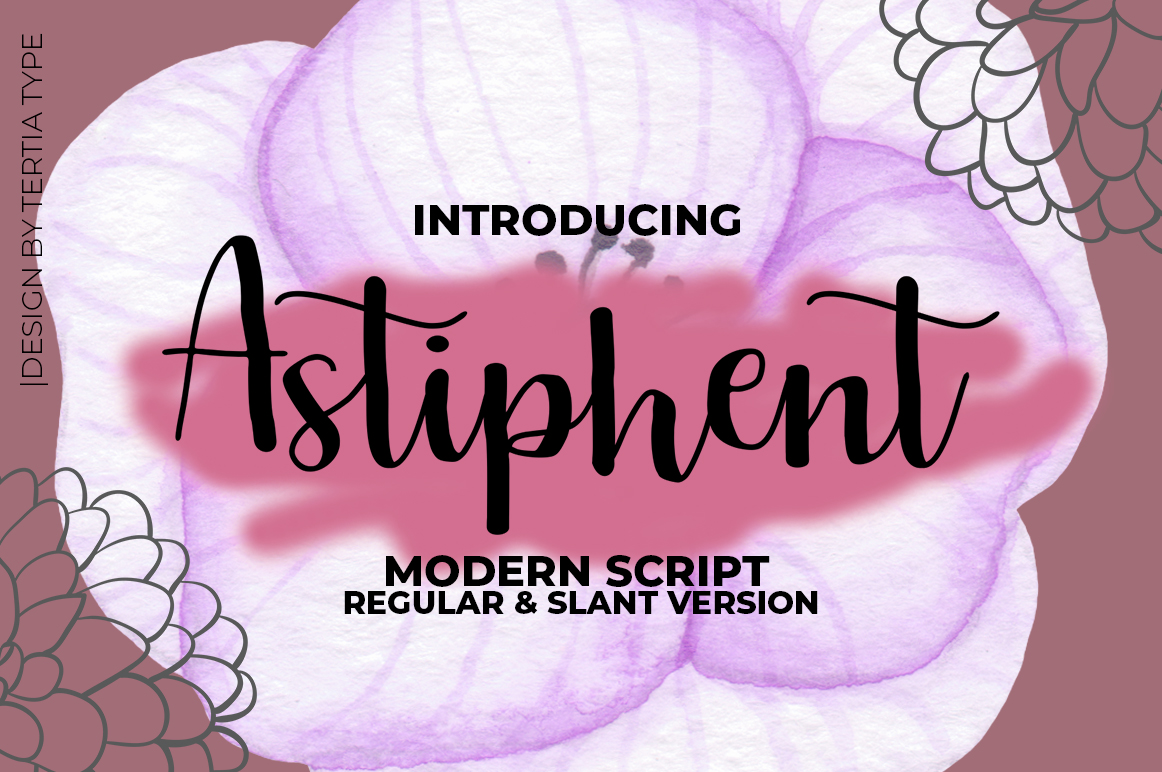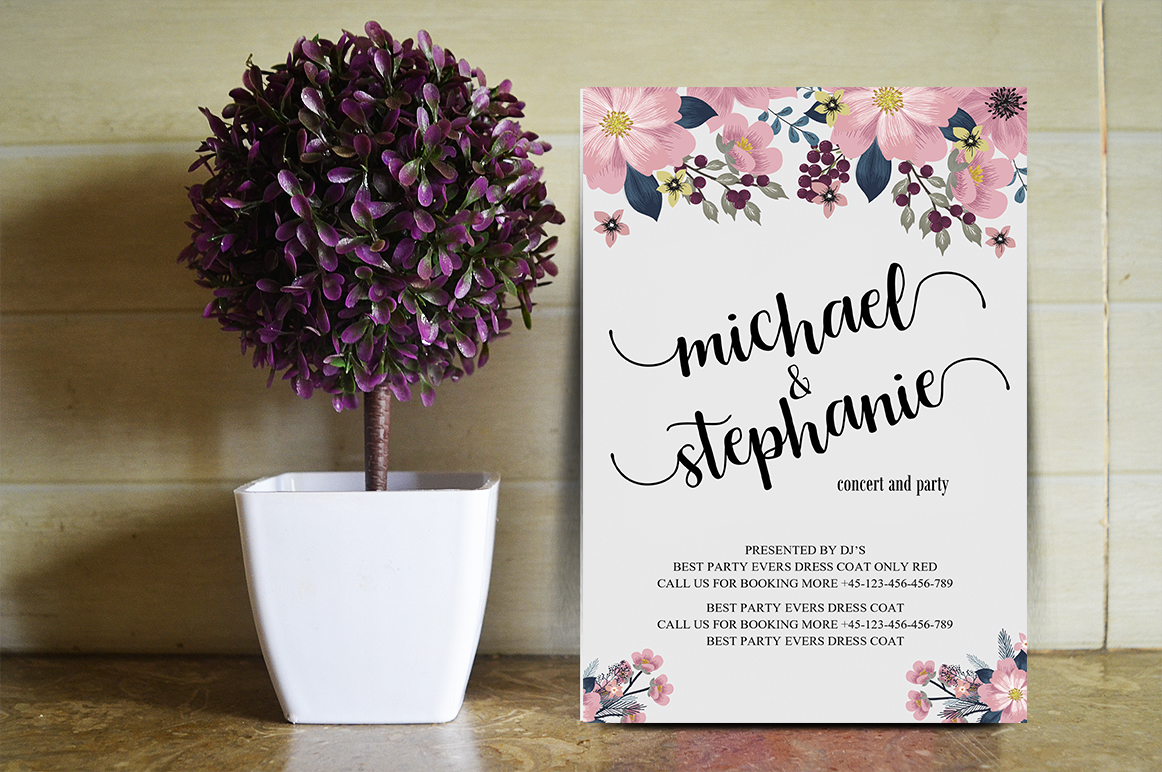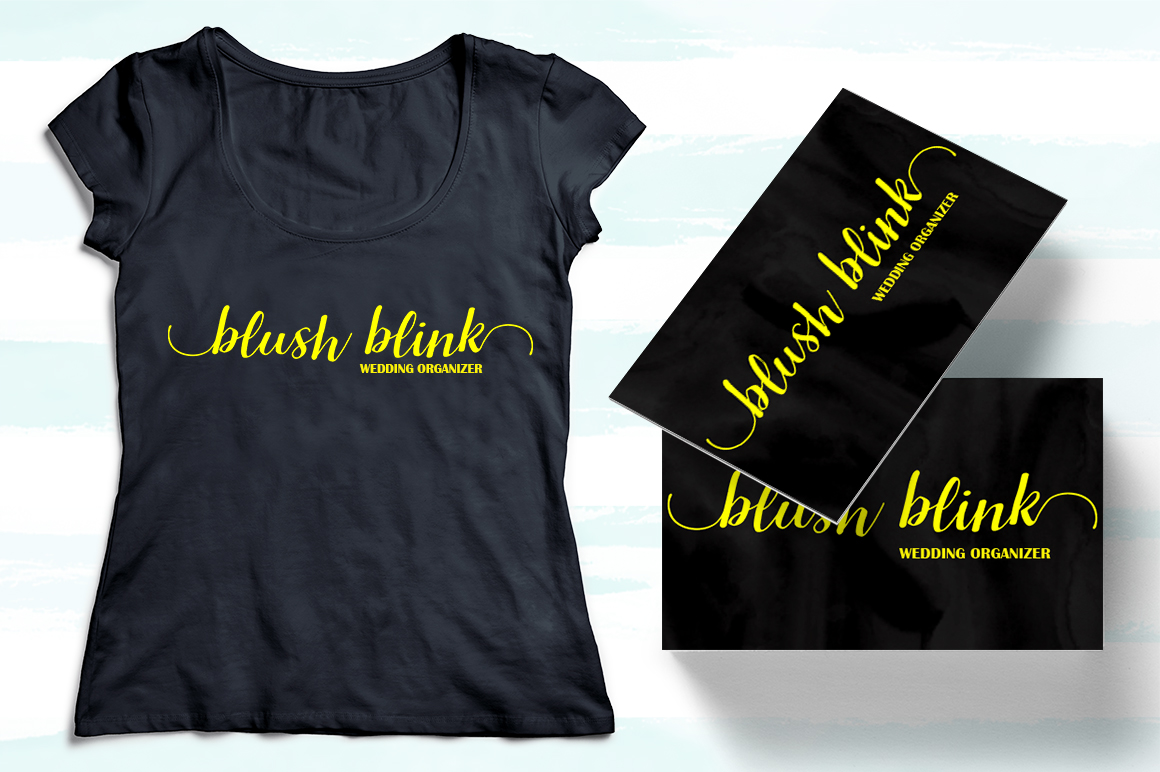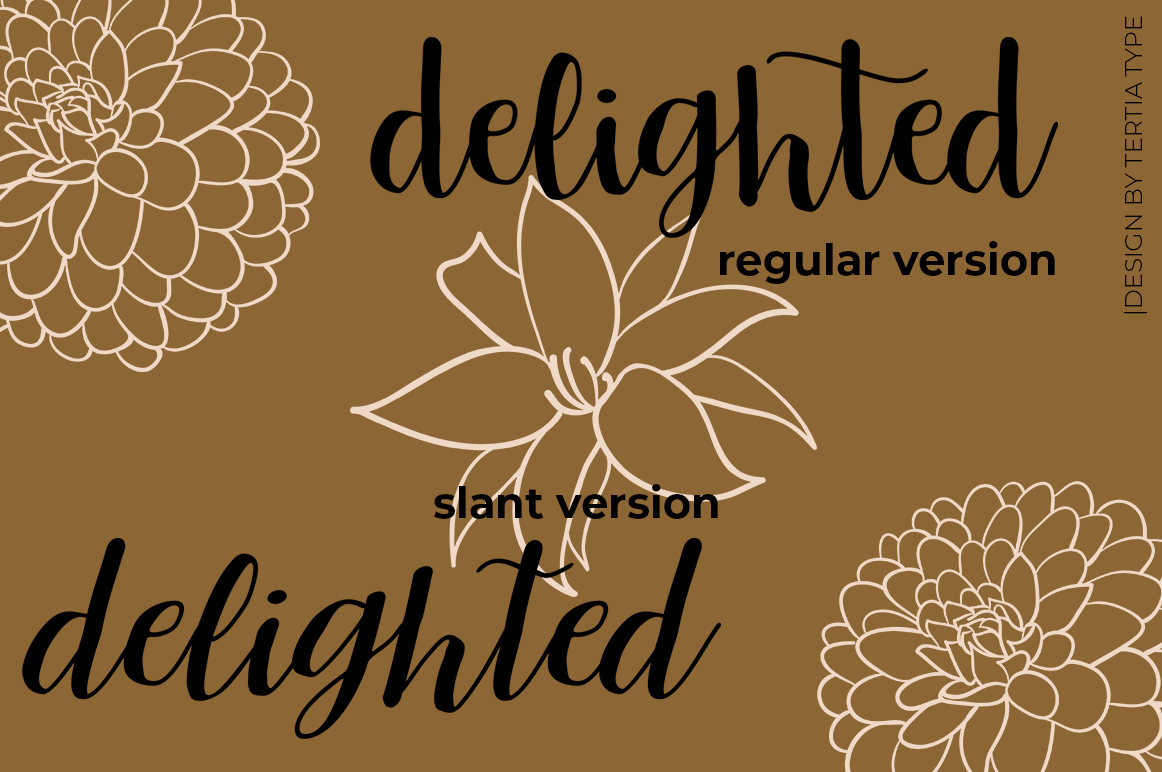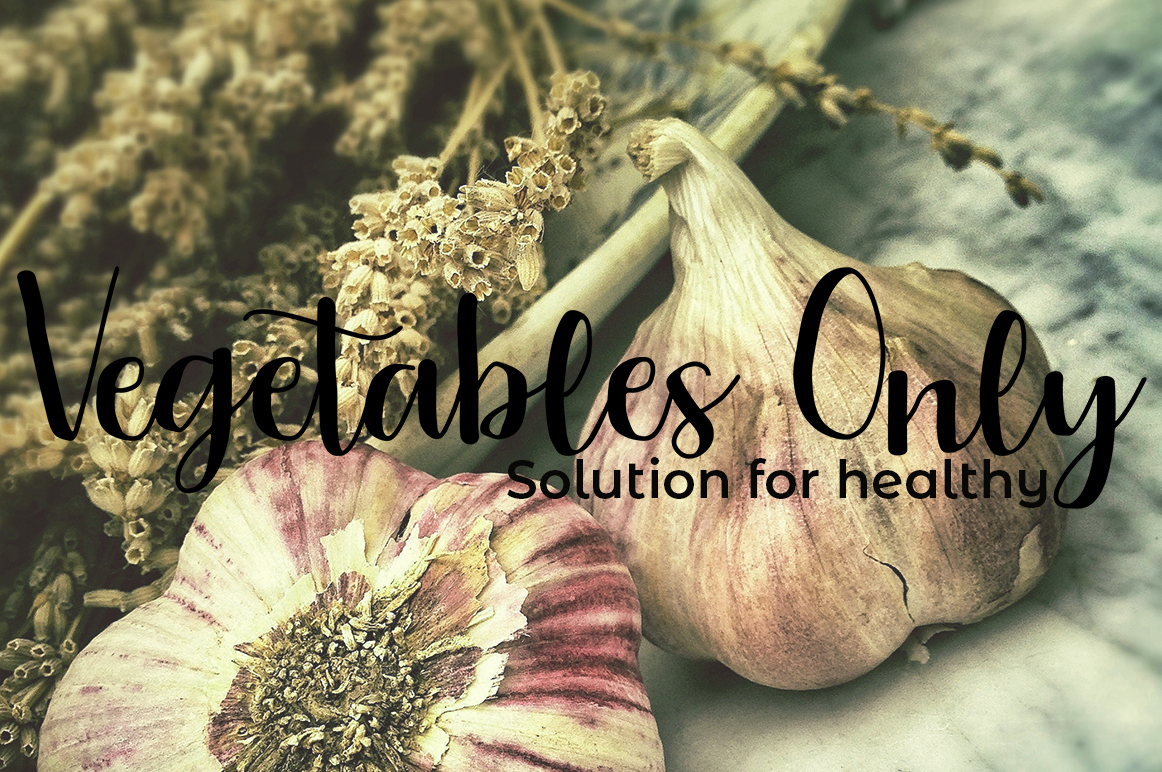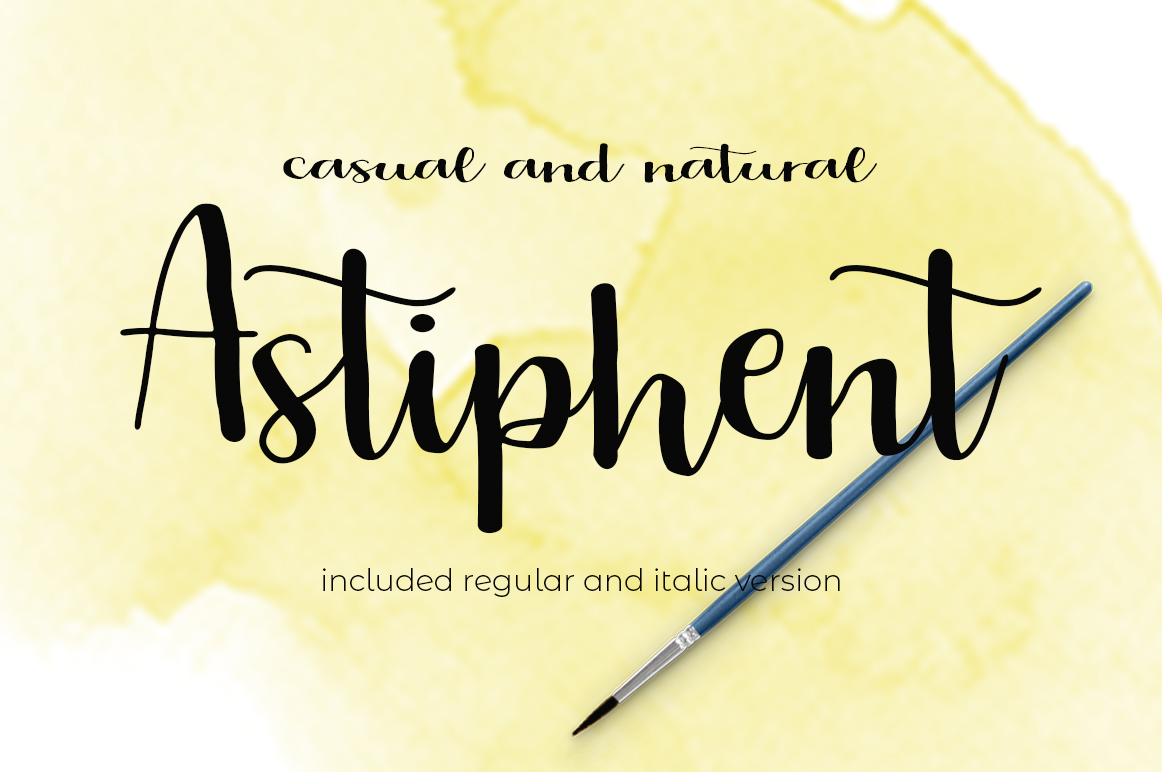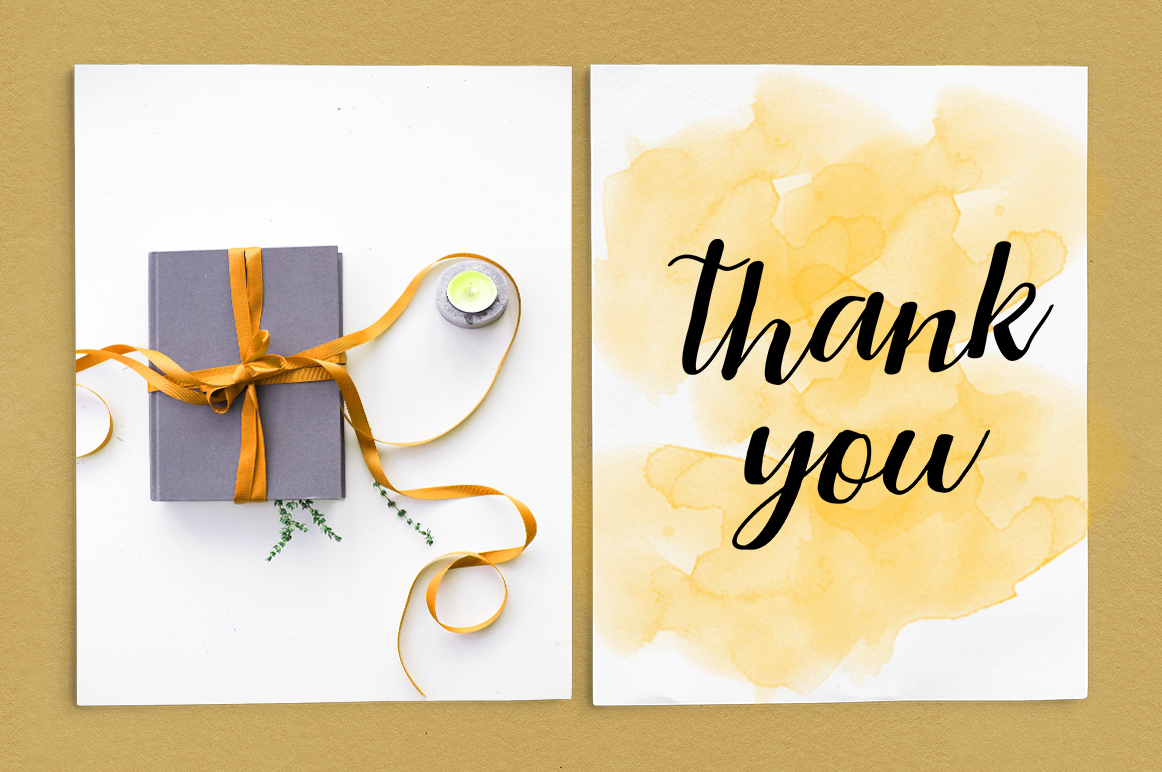
Astiphent Font
Astiphent is a beautiful brush typeface, with tons of start and ending swashes to give your typographic projects a wholly realized and elegant appeal. With stylistic alternates and a slanted version, Astiphent is a great script font to use for a wide range of both digital and print designs.